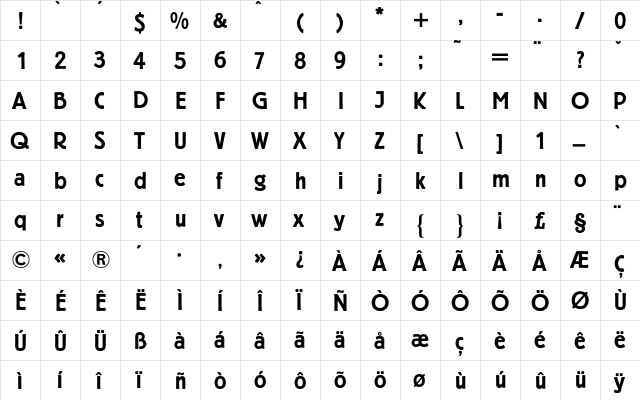
BerlinerGroteskBQ Medium Font Preview
BerlinerGroteskBQ Medium
BerlinerGroteskBQ Medium Font Details
Design Context for BerlinerGroteskBQ Typeface
BerlinerGroteskBQ has the quiet confidence of well-executed sans-serif typography: versatile, unobtrusive, and dependable at any size.
Font Pairing: Works well alongside a characterful serif or display font that can carry the expressive load while BerlinerGroteskBQ handles the functional copy.
Pro Tip: Use BerlinerGroteskBQ for UI labels, navigation, and short-form body copy where clean legibility is the priority.